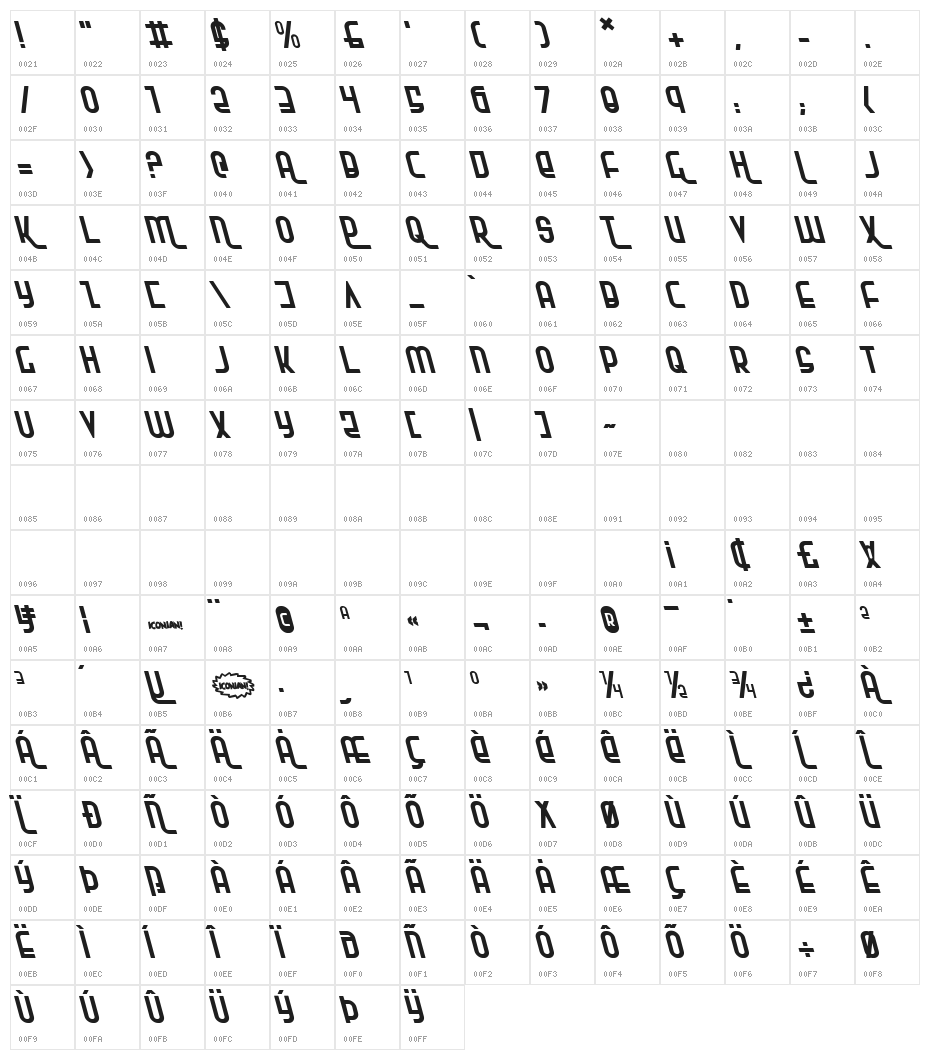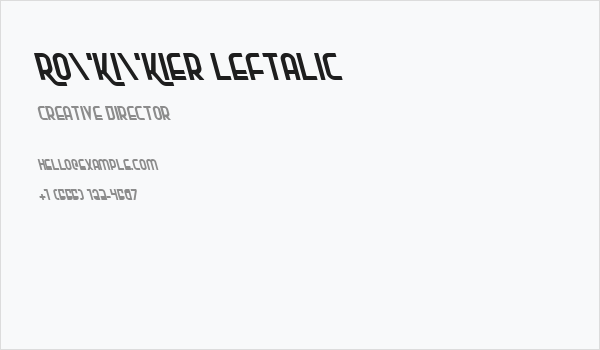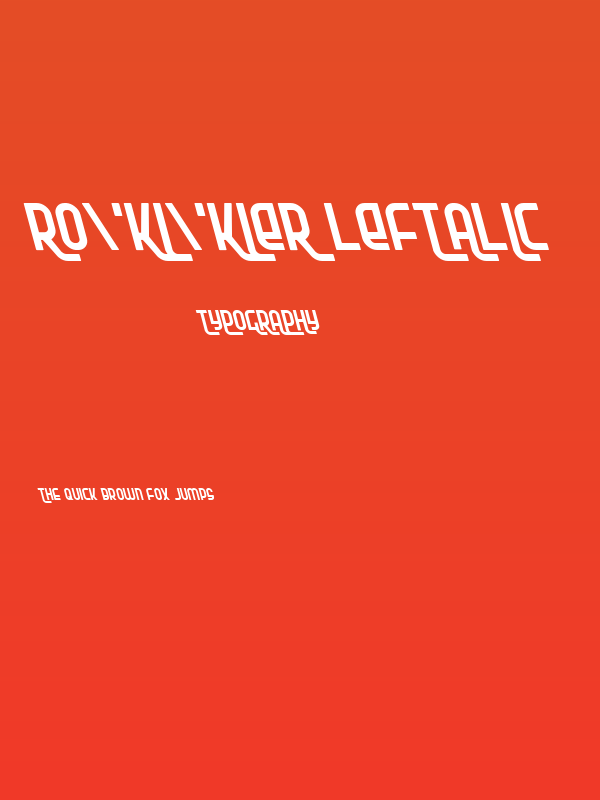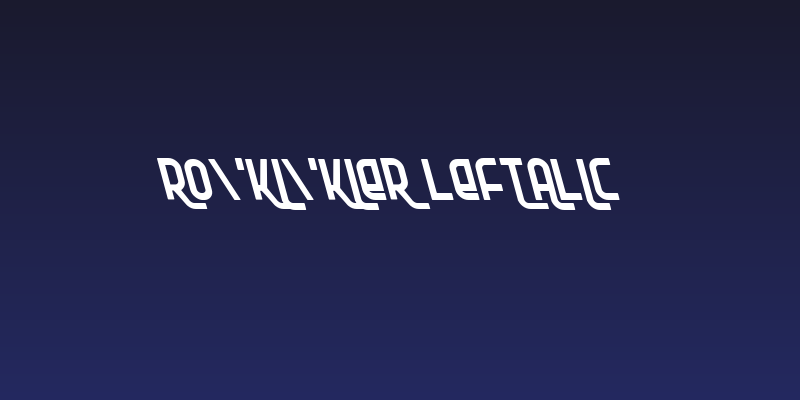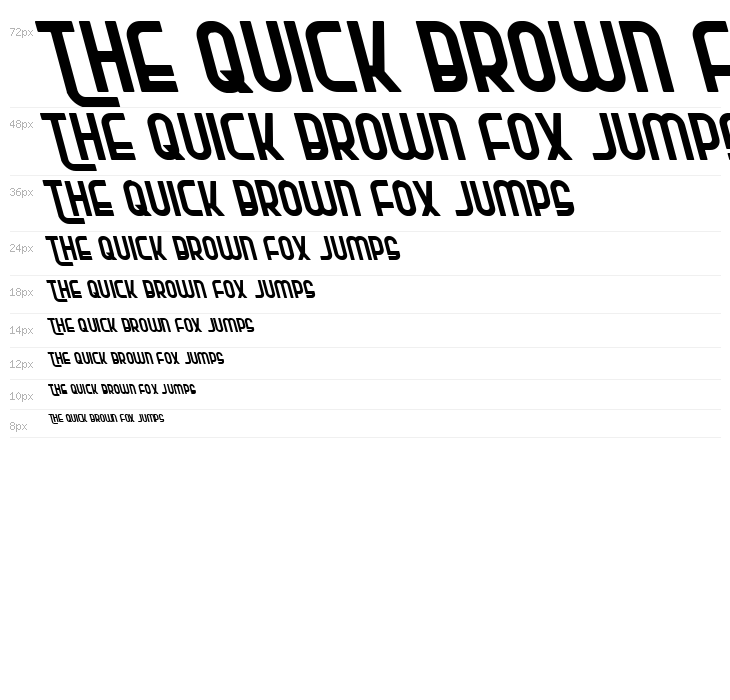
Ro'Ki'Kier Leftalic Font
Ro'Ki'Kier Leftalic Description
This font features a unique and modern design with a distinct leftward slant, giving it a dynamic and forward-moving appearance. The characters are bold and have a geometric structure, with sharp angles and clean lines that create a futuristic feel. The uppercase and lowercase letters maintain a consistent style, with the lowercase mirroring the uppercase in form and structure. Numbers and special characters are designed to match the overall aesthetic, ensuring a cohesive look across all elements. The font's boldness and angular design make it stand out, making it suitable for attention-grabbing headlines and titles.
| Proposed Projects | Ideal for modern branding, tech-related projects, futuristic posters, and dynamic headlines. |